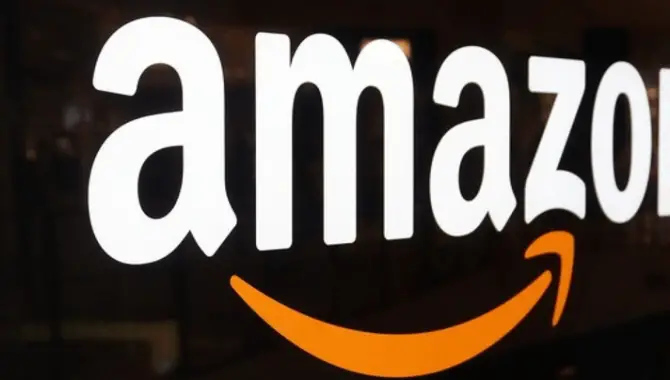
The Amazon Logo Font: Unveiling The Design Secrets
The Amazon logo is one of the most recognizable logos in the world. With its simple yet elegant design, the logo has become synonymous with online shopping and has helped establish Amazon as a global retail giant.
However, one aspect of the Amazon logo that often goes unnoticed is its font. The font used in the logo plays a critical role in creating the overall design of the logo and has helped establish Amazon’s brand identity.
However, We will dive deep into the design secrets of the Amazon logo font. We will explore its origins, discuss its popularity and usage in branding, and even show you what the logo font looks like.
Amazon Logo Font
Unveiling the Amazon logo design is an interesting journey that reveals the thought and creativity behind this iconic brand. The Amazon logo features a distinctive font that has become instantly recognizable to millions worldwide. The company created font “Amazon Ember” for use in the logo.
It combines bold, uppercase letters with a slight curve, making it modern and sleek. The choice of font reflects Amazon’s commitment to innovation and customer-centric approach. It conveys a sense of trust, reliability, and forward-thinking, all of which have contributed to Amazon’s success as one of the largest online retailers in the world.
What Are The Design Secrets Of The Amazon Logo Font?
The logo font is a simple yet distinctive design that has become instantly recognizable to millions of people around the world. Amazon specifically created the font called “Amazon Ember” for the company’s logo. It features a clean, sans-serif style with rounded edges, giving it a modern and friendly look.
The lowercase “a” in the logo has a unique curved shape, resembling a smile, which conveys a sense of joy and satisfaction. Overall, the logo font design reflects the company’s commitment to providing a seamless and enjoyable shopping experience for its customers.
Popularity And Usage Of The Amazon Logo Font
The popularity and usage of the logo font, known as “Amazon Ember,” reflect the success and dominance of the company in e-commerce. As a custom-designed typeface, Amazon Ember embodies simplicity, modernity, and professionalism, aligning with the customer-centric approach of the brand. People widely recognize and associate it with Amazon’s brand identity, values, and dominance in e-commerce.
We have consistently used the font across various platforms and marketing materials, fostering strong brand recognition. With its clean lines, lowercase letters, and rounded edges, the font exudes friendliness, approachability, and a sense of modernity. It encompasses Amazon’s wide range of products and services through the arrow connecting the letters “A” and “Z” in the logo, symbolizing the extensive selection available to customers.
How To Use The Amazon Logo Font For Branding Purposes
What Does The Amazon Logo Font Look Like?
Amazon Ember is a custom-designed typeface. It is a sans-serif font with rounded edges, giving it a modern and friendly appearance. The text is easily readable because the letters are evenly spaced and have a consistent thickness. The lowercase “a” in the Amazon logo features a unique curve at the top, adding a distinctive touch to the overall design. The Amazon logo font reflects the company’s commitment to innovation and customer-centric approach.
The font used in the Amazon logo is a custom-designed typeface called Amazon Ember. This font was created specifically for the brand and is unavailable for public use. The Amazon Ember font has a clean and modern look, with slightly rounded edges and bold letterforms. It is designed to be easily readable across various digital platforms and sizes.
Overall, the font choice for the Amazon logo plays a significant role in creating a recognizable and cohesive brand identity for the company. Whether you’re a designer looking for inspiration or a business owner planning to use the Amazon logo font for branding purposes, understanding its design secrets can help you create a powerful visual identity for your brand.